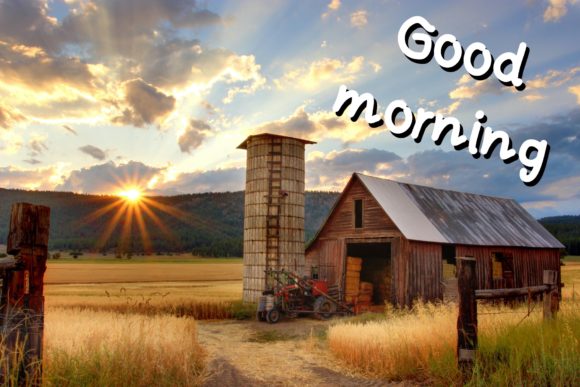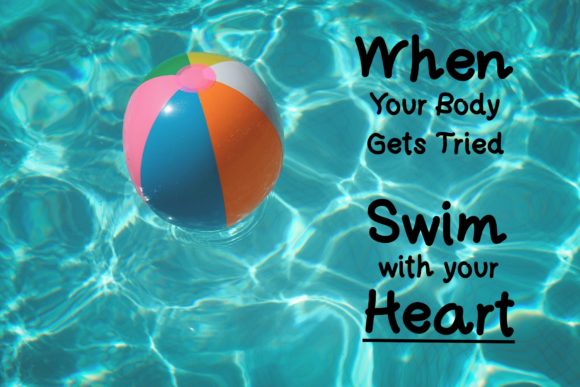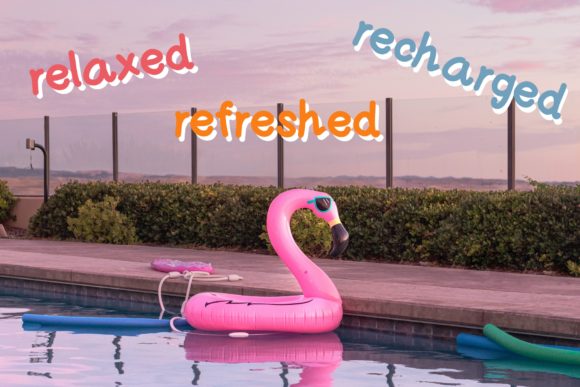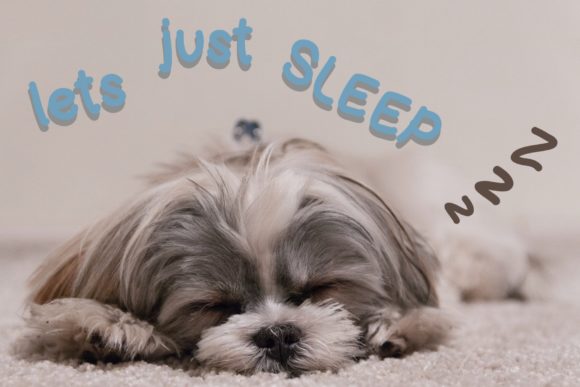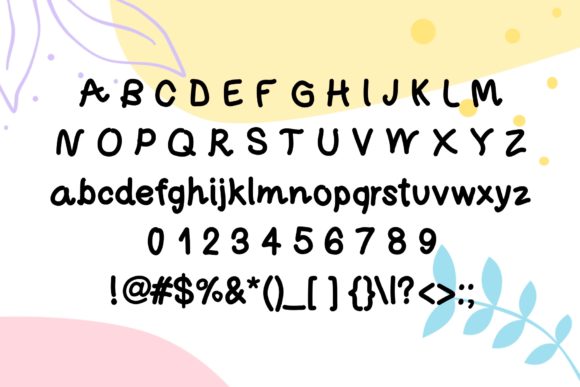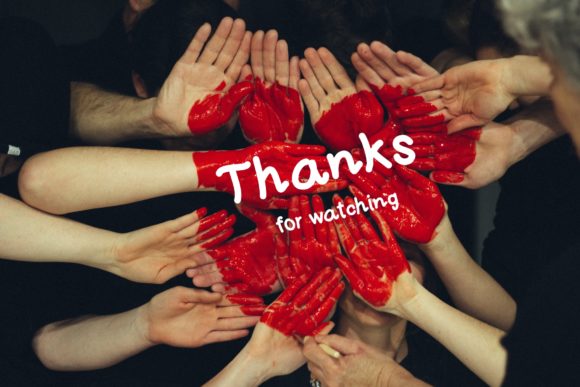
Bobby Font: The Handwritten Gem for DIY Projects
Are you a designer or crafter looking for a unique and authentic touch for your DIY projects? Look no further than the Bobby Font, a stunning handwritten font that is sure to bring your creations to life. This gorgeous font is the result of a beautiful pairing of a brush pen and pencil, giving it an endearing and genuine feel that is hard to find in digital fonts.
The Origins of Bobby Font
The Bobby Font is a one-of-a-kind handwritten font that has been carefully crafted to capture the essence of traditional handwriting. The font’s creator used a combination of a brush pen and pencil to create the characters, resulting in a unique and organic look that is both elegant and playful. The use of a brush pen and pencil gives the font a distinctive texture and feel, making it perfect for DIY projects that require a personal touch.
What Makes Bobby Font So Special?
So, what sets the Bobby Font apart from other handwritten fonts? Here are just a few reasons why this font is a standout:
- Unique and Authentic Look: The Bobby Font has a genuinely handwritten look that is hard to find in digital fonts. The combination of a brush pen and pencil gives the font a distinctive texture and feel that is both endearing and authentic.
- Versatile: The Bobby Font is incredibly versatile and can be used for a wide range of DIY projects, from crafting and scrapbooking to card making and journaling.
- Elegant and Playful: The font has a perfect balance of elegance and playfulness, making it suitable for a variety of projects and themes.
How to Use Bobby Font in Your DIY Projects
The Bobby Font is incredibly easy to use and can be incorporated into a wide range of DIY projects. Here are just a few ideas to get you started:
- Crafting: Use the Bobby Font to add a personal touch to your crafting projects, such as knitting patterns, crochet designs, and paper crafting.
- Scrapbooking: Add a touch of elegance and whimsy to your scrapbook pages with the Bobby Font.
- Card Making: Use the Bobby Font to create beautiful and unique greeting cards for any occasion.
- Journaling: Add a personal touch to your journal or diary with the Bobby Font.
Tips for Getting the Most Out of Bobby Font
Here are a few tips for getting the most out of the Bobby Font:
- Experiment with Different Sizes and Colors: The Bobby Font looks great in a variety of sizes and colors, so don’t be afraid to experiment and find the perfect combination for your project.
- Pair with Other Fonts: The Bobby Font pairs well with other fonts, so try combining it with a bold font for headings or a simple font for body text.
- Add Texture and Patterns: Add texture and patterns to your project by combining the Bobby Font with other design elements, such as photos, illustrations, or textures.
| Font Name | Bobby Font |
| Author | DREAMs Soul G. |
The Bobby Font is a unique and authentic handwritten font that is perfect for DIY projects. With its stunning pairing of a brush pen and pencil, this font has a genuinely handwritten look that is both endearing and elegant. Whether you’re a designer or crafter, the Bobby Font is sure to bring your creations to life. So why not give it a try and see the difference it can make in your next DIY project?
- Q: What is the Bobby Font? A: The Bobby Font is a unique and authentic handwritten font created using a combination of a brush pen and pencil.
- Q: What can I use the Bobby Font for? A: The Bobby Font can be used for a wide range of DIY projects, including crafting, scrapbooking, card making, and journaling.
- Q: Is the Bobby Font easy to use? A: Yes, the Bobby Font is incredibly easy to use and can be incorporated into your projects with just a few clicks.